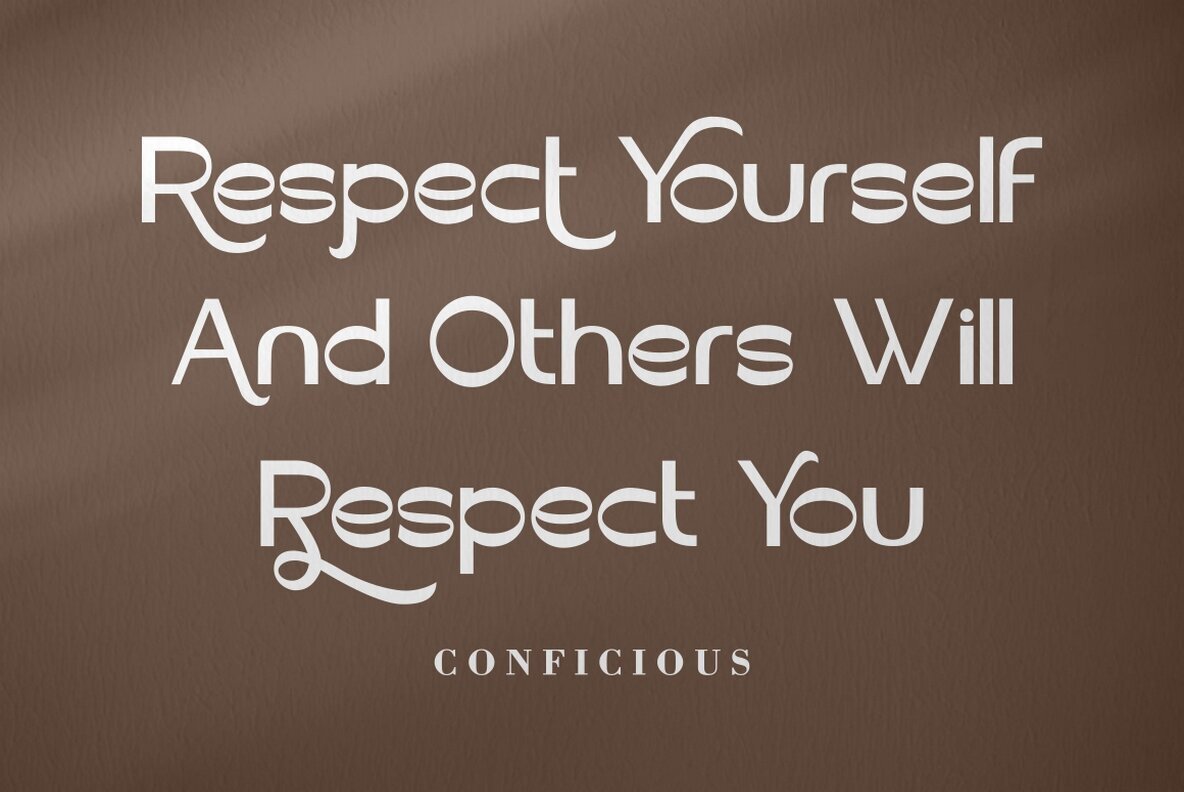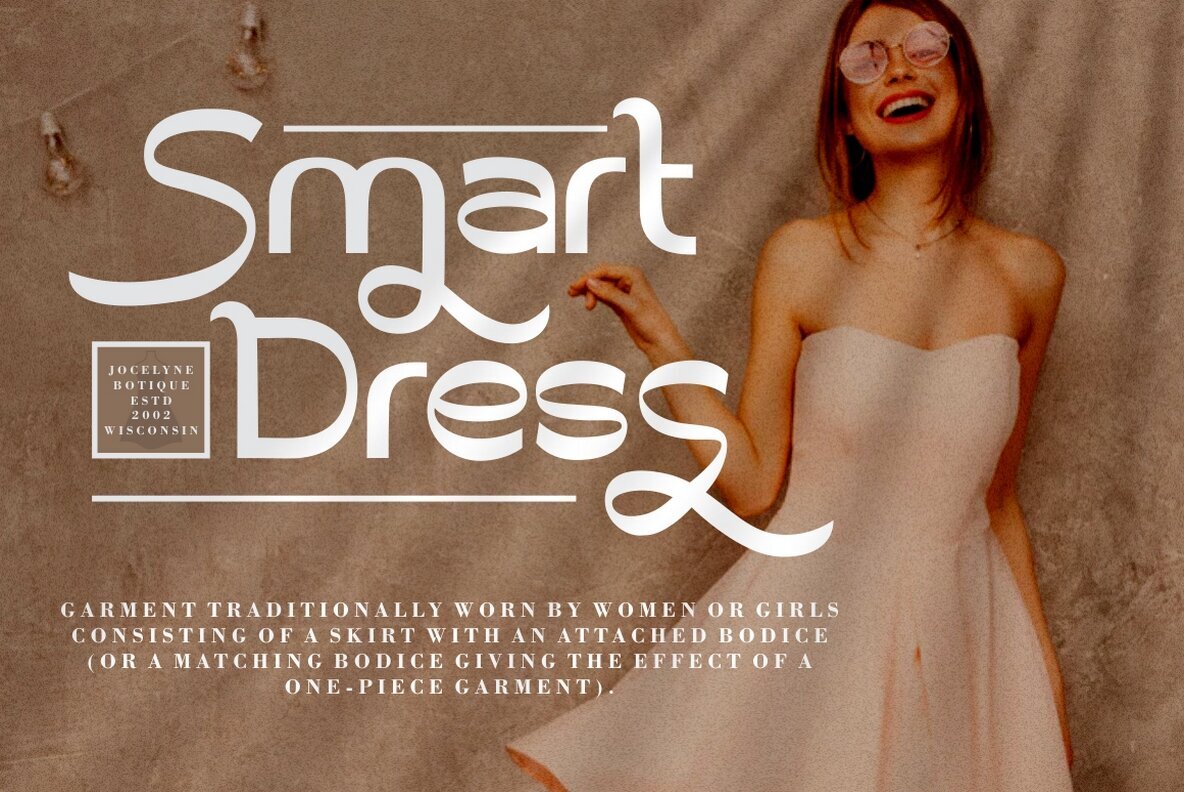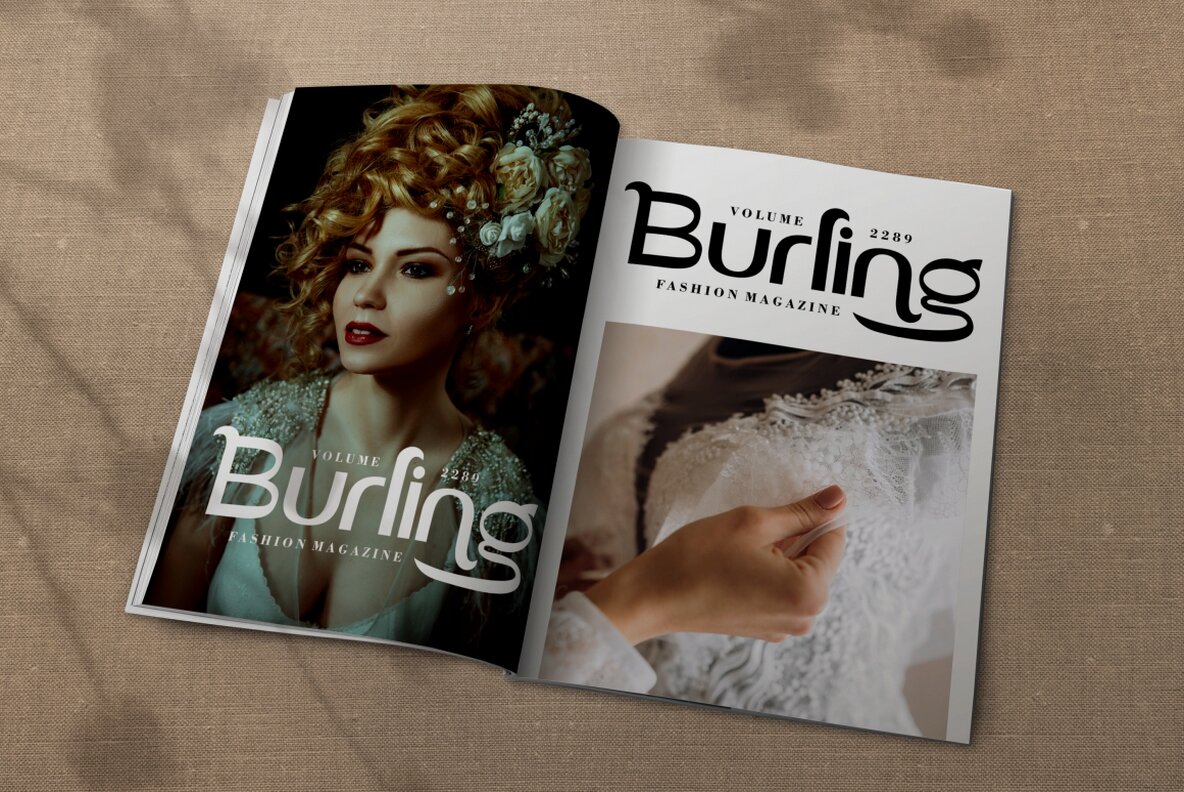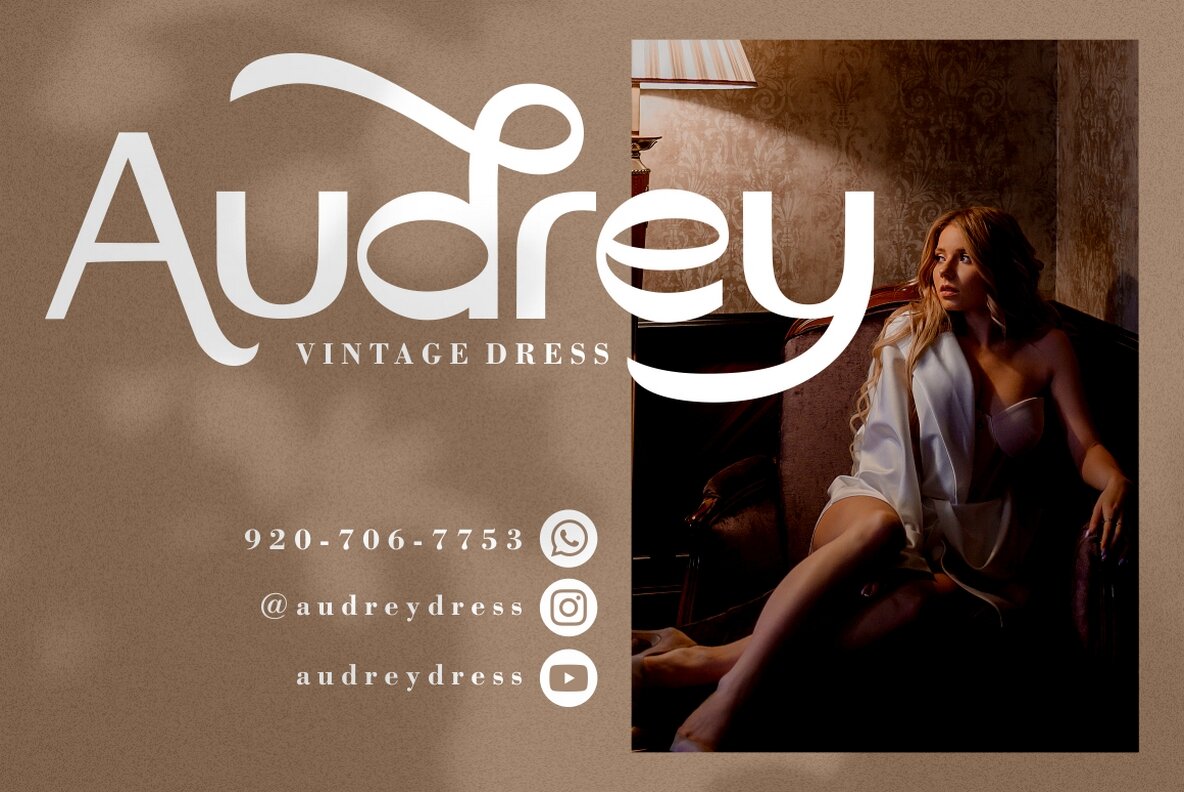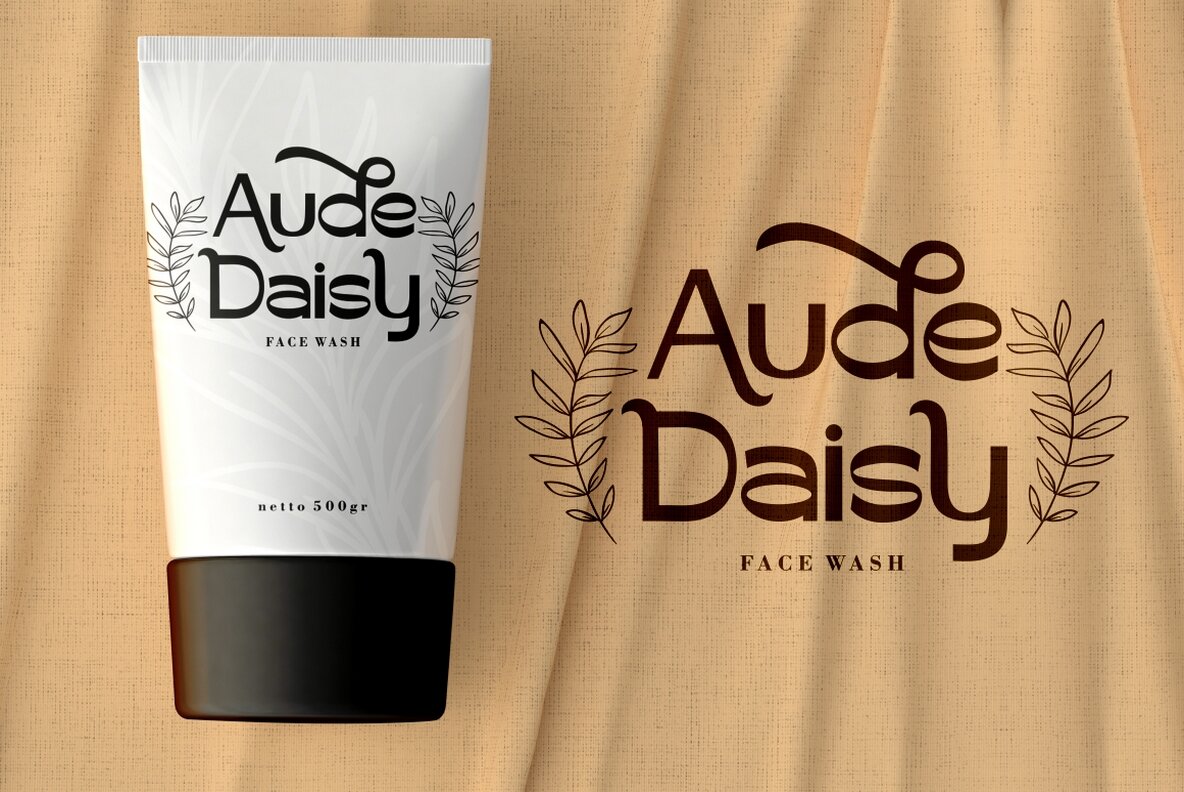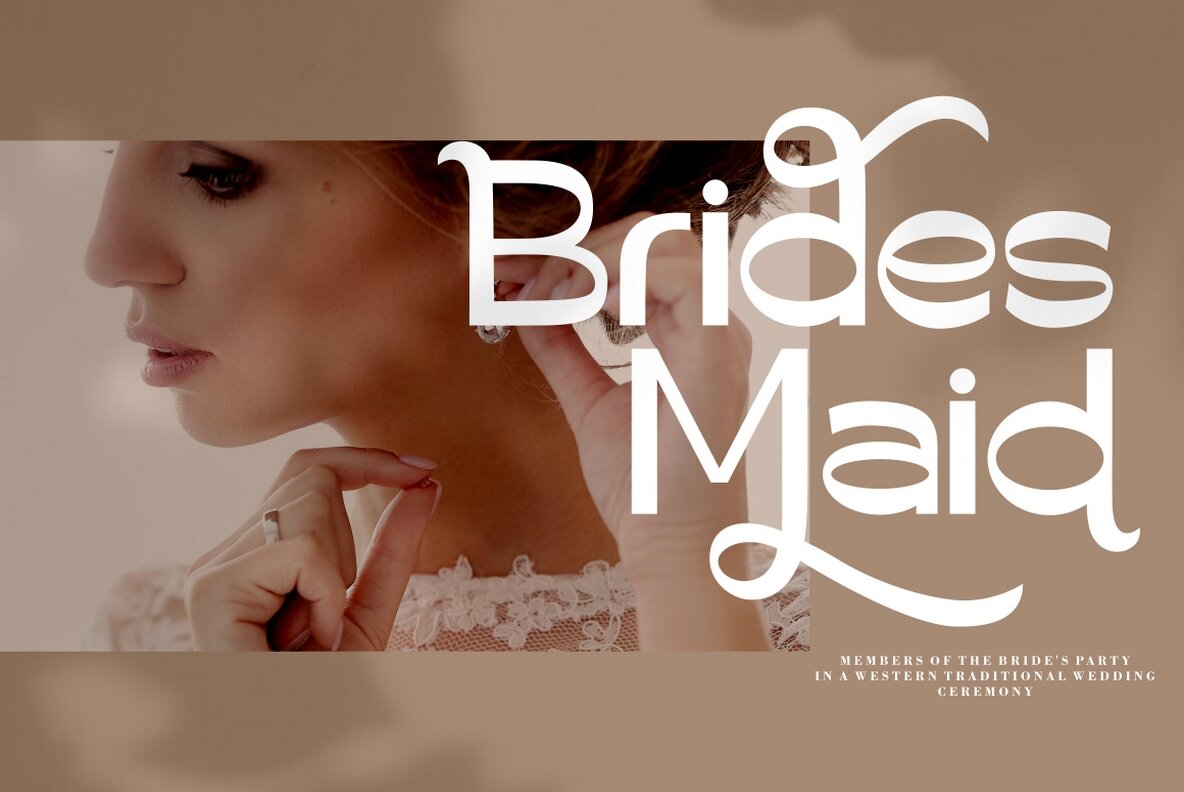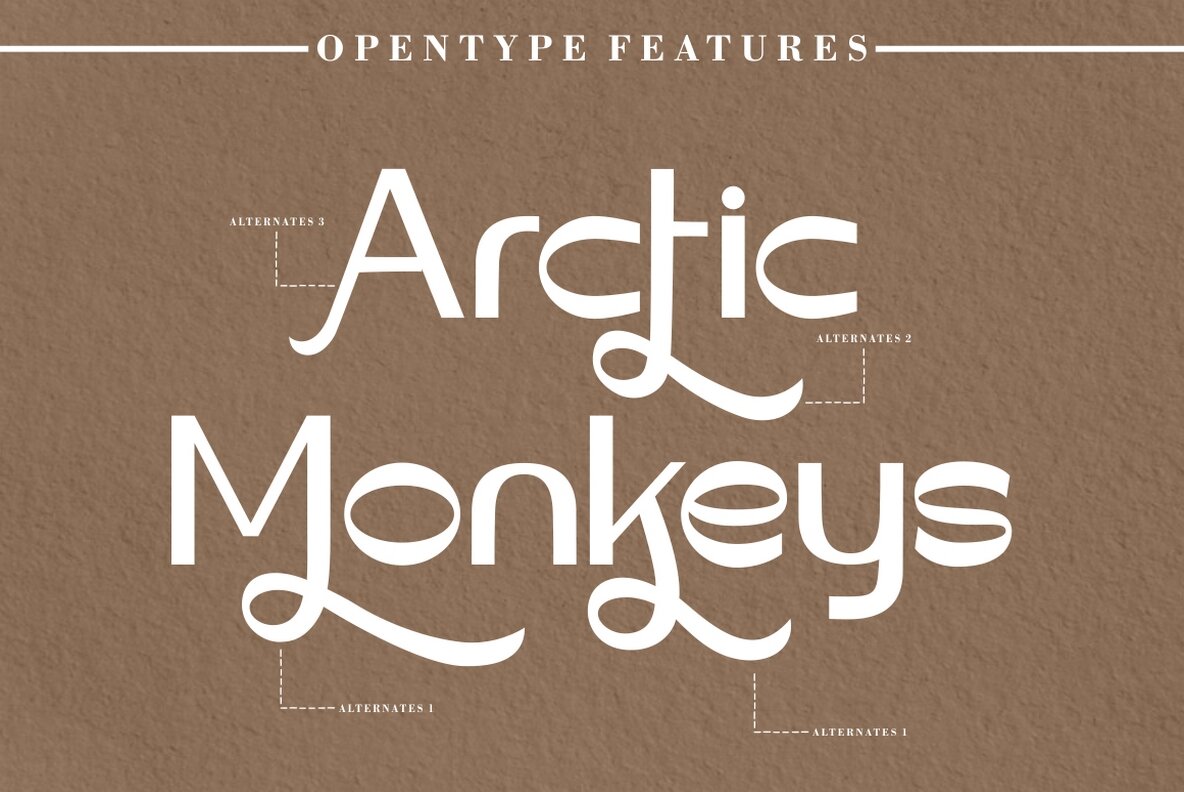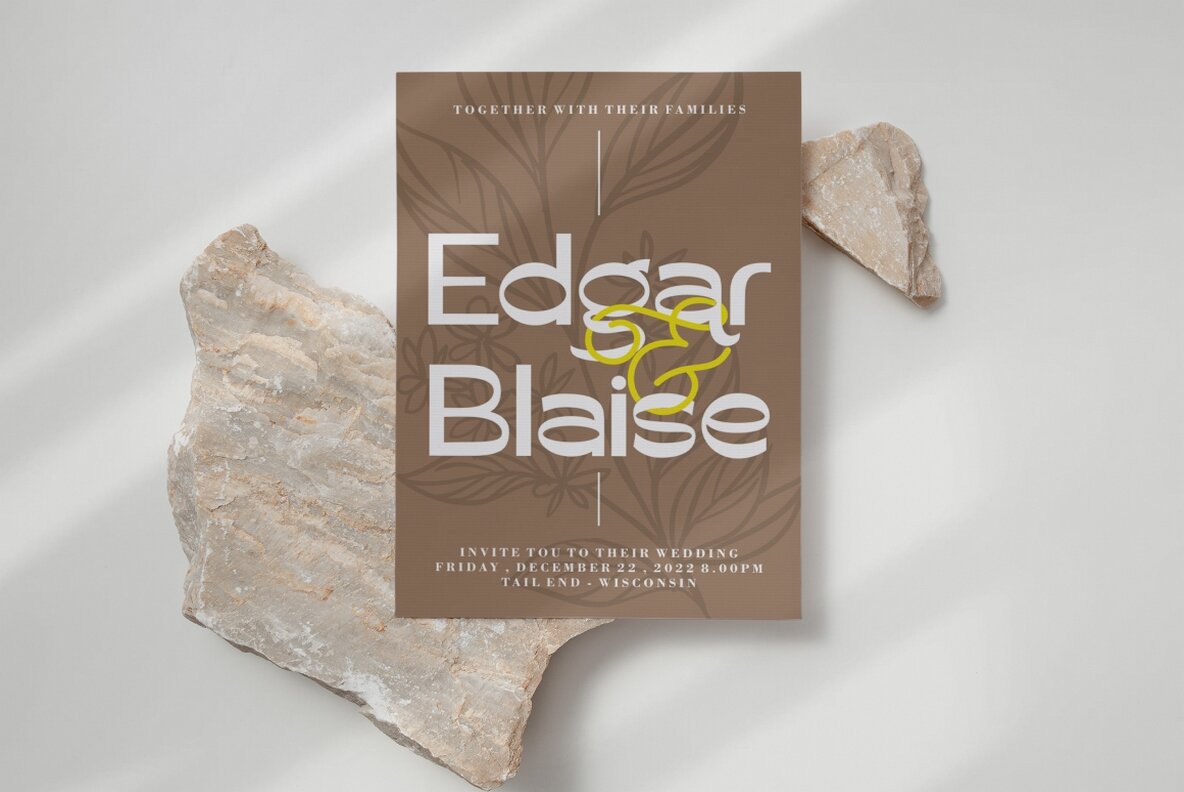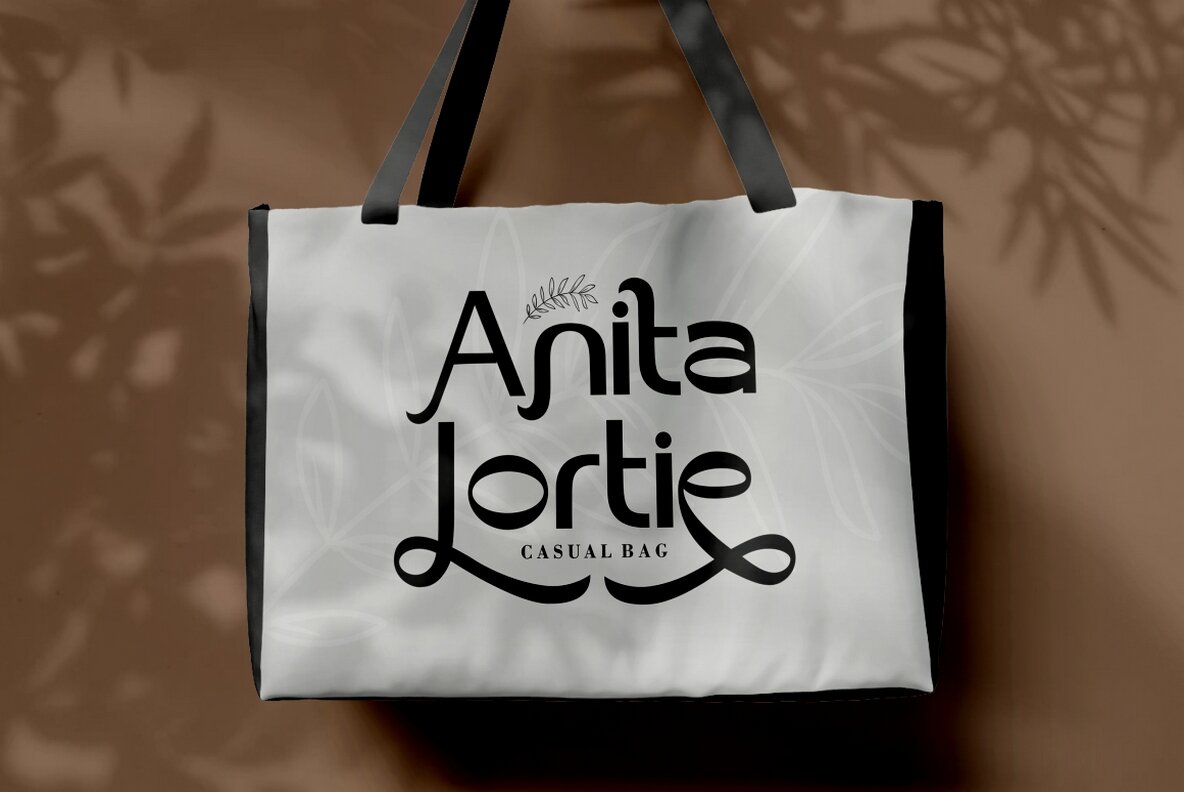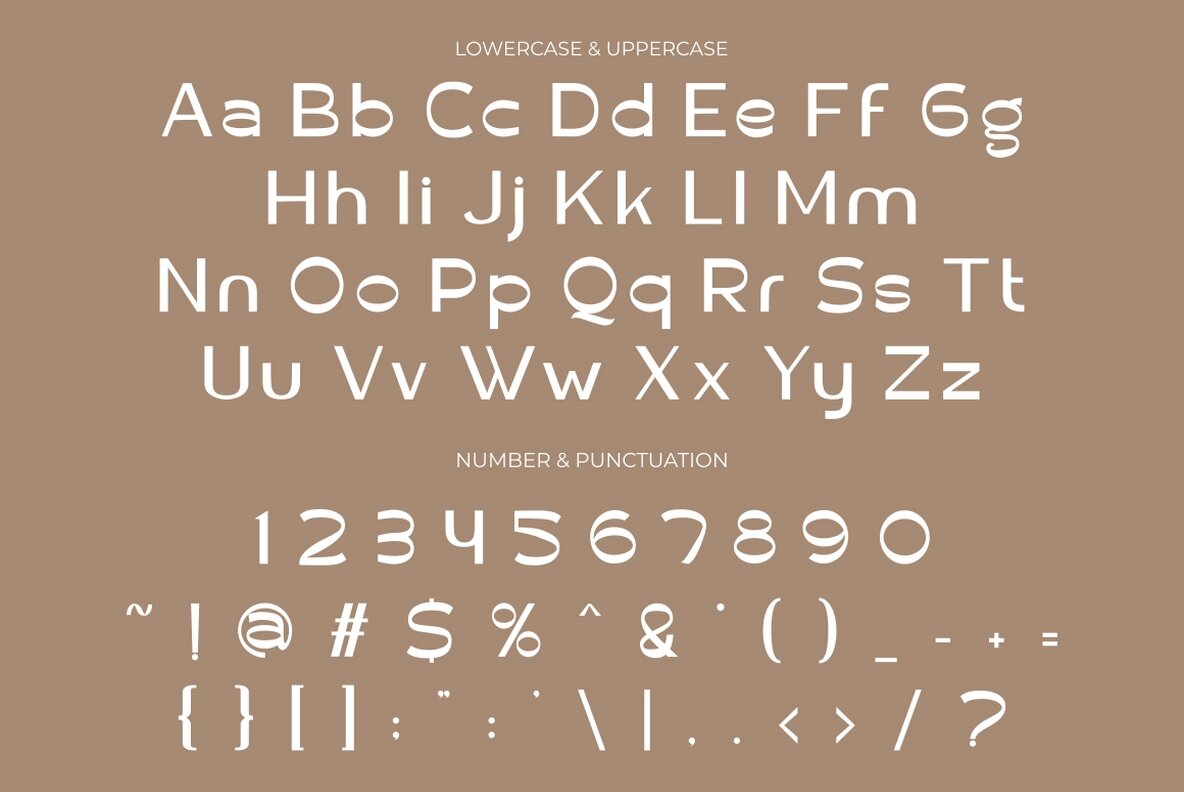
Vidage Font
Vidage Regular
Vidage - Elegant Serif Typeface Font is a sophisticated font that combines the qualities of a display font with an elegant serif style. Its modern and bold design, along with alternative characters, make it a versatile choice for various design applications. Whether you're creating logos, branding materials, product packaging, wedding stationery, invitations, titles, or headlines, this font will add a touch of elegance and visual impact to your projects. The elegant serif style of Vidage exudes a sense of refinement and class. Its clean and modern lines give it a contemporary look while maintaining a timeless appeal. The bold nature of this font ensures that your designs will stand out and make a statement. The inclusion of alternative characters allows for creative exploration and customization, giving you the freedom to find the perfect aesthetic for your project. Whether you're designing a luxurious logo, creating stylish packaging, or crafting elegant wedding invitations, Vidage - Elegant Serif Typeface Font offers the versatility and elegance needed to make your designs shine.